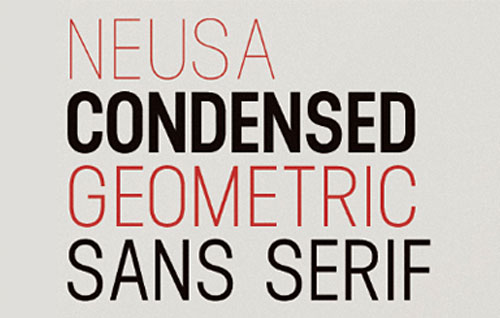
• The best typefaces of 2013
For the past few months, we’ve been rounding up the freshest typefaces from each month. Now, we look back at the year and select the most beautiful fonts of 2013.
The Northern Block: Neusa
A condensed geometric sans-serif inspired by early space explorations including the iconic Life magazine coverage of the 1969 Apollo program.
Latinotype: Trend
A font made of layers, taking as a basis a sans and a slab.
HVD Fonts: Brandon Text
The companion of the famous Brandon Grotesque type family. It has a higher x-height than the grotesque version and is optimized for long texts, small sizes and screens.
Grilli Type: GT Pressura
Inspired by type stamped on shipping boxes, GT Pressura uses the visual effect of ink spreading under pressure as a stylistic device.
Hoefler & Frere-Jones: Landmark
The signature alphabet of one of New York’s most significant buildings becomes a family of clear and colourful display fonts.
Letters from Sweden: Kumla
Letters from Sweden’s first release in the “Fabrik Suite” – a project inspired by Swedish industry, factories and harbours.
Letters from Sweden: Trim Poster
Designed with one purpose in mind: compact all-capital headlines without crashing.
Associated Typographics: Skol
On or off the screen, Skol is a tenacious, hardy font that would make its ancestors proud.
Scribble Tone: Analog
This new take on industrial sans-serifs embodies the spirit of the solid state electronics revolution. Its energetic, generously wide proportions are balanced by confident, efficient strokes with minimal contrast.
Lost Type Co-op: Mission Gothic
A relic; a ghost from an era where letters were hand-painted on wood and glass. Made up of five weights and two styles, Mission Gothic is one of the most expansive type families available from Lost Type Co-op.
Rosetta Type Foundry: Huronia
A text face with flavour, suitable for recording oral literature and for extended reading in books and academic texts.
Wordshape: Vaud
Vaud is a neutral, yet formally nuanced grotesk typeface.
Lineto: LL Circular
LL Circular strikes a balance between conceptual rigour, skilled workmanship and measured idiosyncrasy, resulting in a no-nonsense sans-serif text font with unmistakable character yet universal appeal.
Emigre: Program
A type designer’s typeface. It’s about the craft of typeface design and the particular details and effects that type designers fret over when they design type.
DSType: Diversa
A single typeface with nine fonts within, containing 2760 glyphs, divided into nine stylistic sets.
Sudtipos: Esmeralda Pro
Delicate yet solid curves, serifs and endings give each composition a fine, elegant and exquisite feeling, along with a firm and sturdy look.
Typotheque: Lumin
The Lumin family includes slab-serif, sans-serif, condensed and display typefaces, all of which play with the idea of contradiction.
FaceType: Substance
Substance fulfills the primary role of emphasizing content.
Type Together: Bree Serif
A young and energetic upright italic.
OurType: Remo
Warmth and good humour, with italics that are nothing less than sunny and delightful.
Commercial Type: Dala Moa
Originally inspired by worn gravestone lettering and lettering on shipping crates, the elegance of the forms belies their everyday origins.
Delve Fonts: Sketchnote
When a handcrafted aesthetic and ease-of-use are desired.
Incubator: Sharp Sans
Injects some much needed humanism into the Futura model.
Sudtipos: Rolling Pen
Rolling Pen runneth over with alternates, swashes, ligatures, and other techy perks.
Fontyou: Kaili FY
An exotic typeface with crazy ligatures.
Sudtipos: Zulia
Zulia is based on two calligraphic styles: italic and brush pen.
DSType: Aparo
Aparo appears to be a very simple bold italic roman typeface, but it has plenty of calligraphic flair.
Hold Fast Foundry: Prohibition
This vintage sans takes queues from classic war and workforce posters.
MVB Fonts: MVB Solitaire
A tempered sans-serif somewhere between a humanist and a gothic, MVB Solitaire captures a 21st century neutrality.
Positype: Lust Script
Lust Script is packed with alternates to play with – enough to turn you on and satisfy.
Fontfabric: Braxton
A brush flavoured script family characterized by excellent legibility in both web & print.
Laura Worthington: Charcuterie
A large and rare undertaking – a family of 10 distinct yet related typefaces, many of which have their own font families and three decorative/ornamental typefaces.
Klim: Domaine
Contemporary, curvaceous Latin detailing on a Scotch skeleton.
FontFont: FF Mark
New meets old meets technic, FF Mark is not an average geometric sans. Strong, simple, bold and created with utmost consideration and precision.
Type Supply: Balto
From casual to authoritative, classic to contemporary, passive to aggressive, Balto is ready for the job.
Typotheque: Lava
Designed for magazine use, but far transcends its original application. Lava is a no-nonsense workhorse typeface that can handle large quantities of text with ease.
FontFont: FF Kievit Slab
Not just Kievit Sans with slab serifs attached. It has been carefully adjusted and fine tuned in width and contrast to help make it an extremely legible typeface.
Commercial Type: Portrait
Aggressive in its simplicity but nuanced in its details.
Typonine: Nocturno
Broad-shouldered and heavy-armed: the rolling, dark silhouettes of its characters create a soothing yet forceful impression that serves to anchor words, no matter where they appear.
Village: Odesta
Seven feature-rich weights with built-in small caps, swash alternates, and contextual alternate initials & finials.
Nootype: Radikal
Radikal is a geometric sans-serif dedicated to the research of purity.
FontFont: FF Quixo
FF Quixo feels at home whenever a touch of personality, whim, and some symbols are required.
Kyle Wayne Benson: Tide Sans
Tide Sans’ fresh, carefree, look makes you almost forget that you’re staring at a monitor and not on the beach.
FaceType: Adria Grotesk
Adria Grotesk is a friendly sans-serif that comes in seven weights with charming upright italics.
Laura Worthington: Al Fresco
A breezy, light, yet expressive typeface.
Letters From Sweden: Line
Line is inspired by beauty, handwriting, graffiti tags and scribble.
Bold Monday: Oskar
Inspired by Dutch architectural and advertising lettering from the early 20th century.
Fontsmith: FS Hackney
Meticulously honed to perform in exacting conditions.